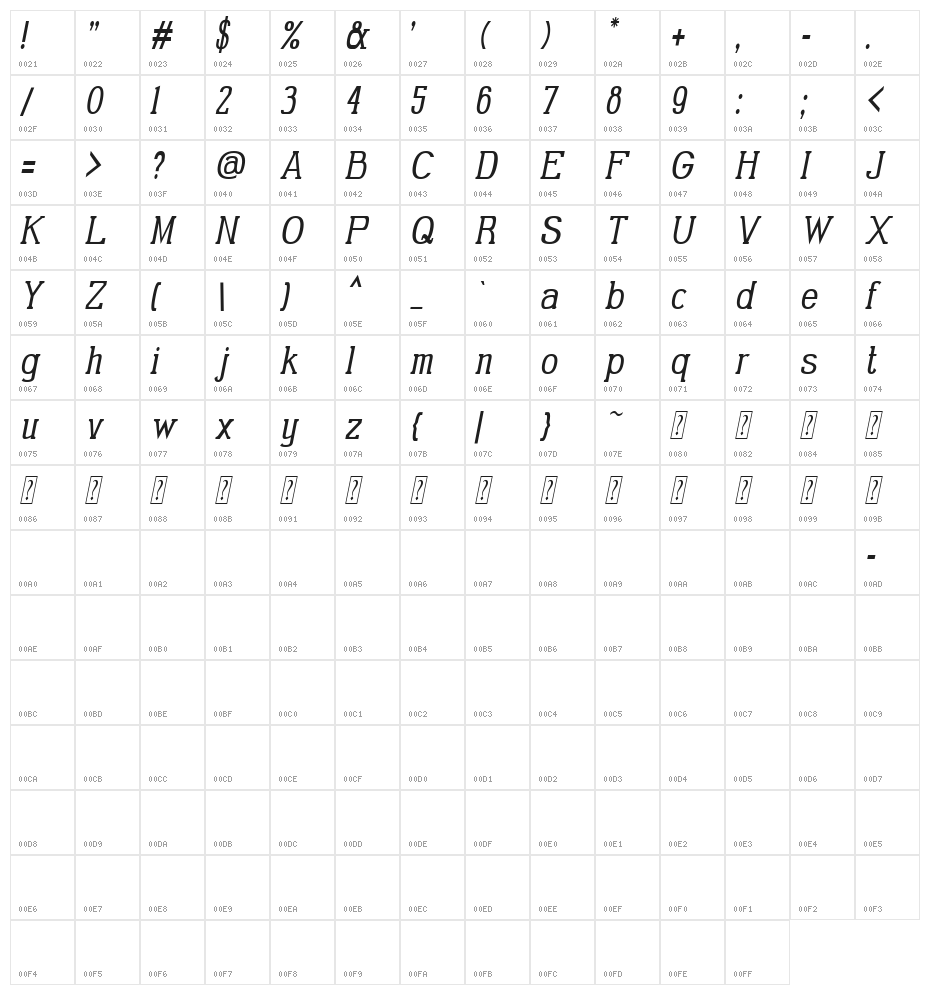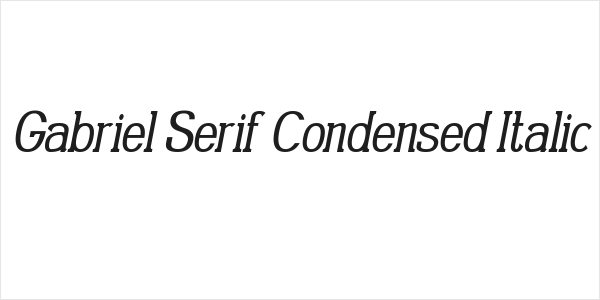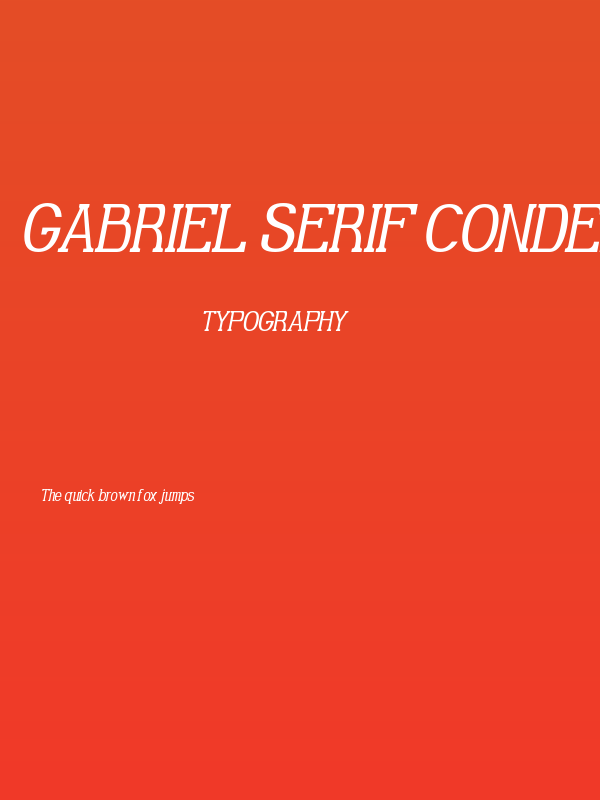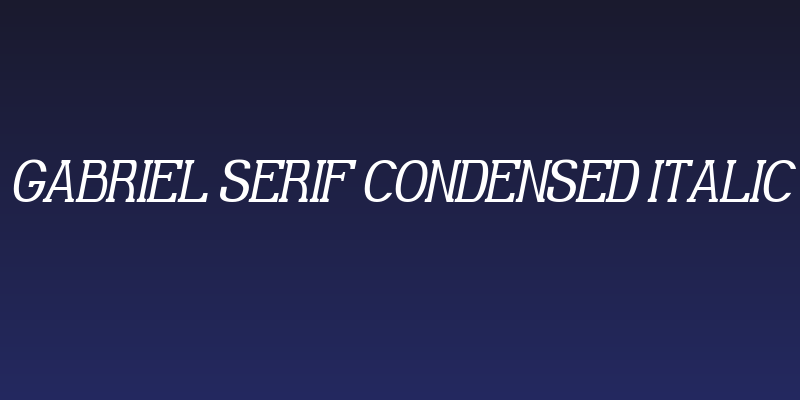
Gabriel Serif Condensed Italic Font
Gabriel Serif Condensed Italic Description
This font exhibits a classic serif style with a condensed and italicized form, giving it a sophisticated and elegant appearance. The serifs are pronounced, adding a touch of formality and tradition. The italic slant provides a dynamic and fluid feel, making it suitable for both formal and creative applications. The condensed nature of the font allows for efficient use of space, making it ideal for headlines or areas where space is limited. The characters maintain a consistent stroke width, contributing to a balanced and harmonious look. Overall, this font combines traditional serif elements with a modern twist through its italic and condensed features.
| Use Case | Headlines, Editorial design, Formal invitations |
| Proposed Projects | Ideal for editorial design, book covers, formal invitations, and branding projects that require a touch of elegance. |